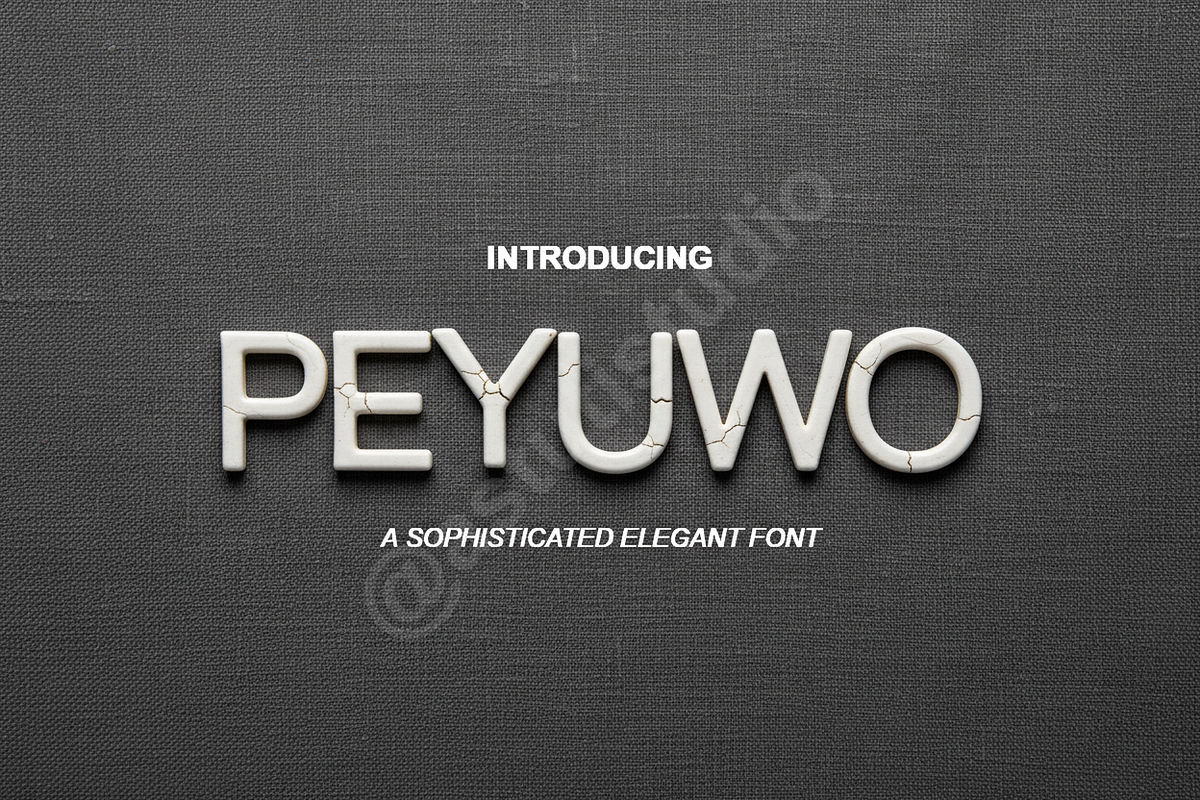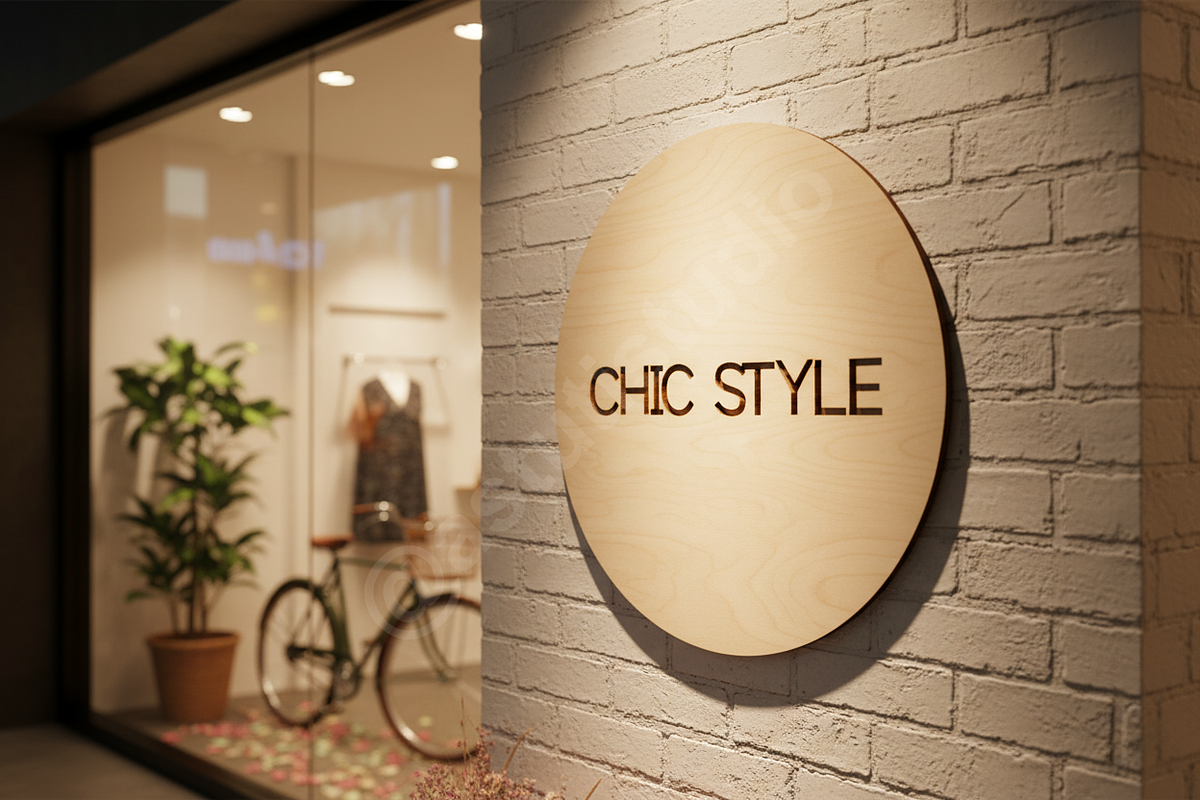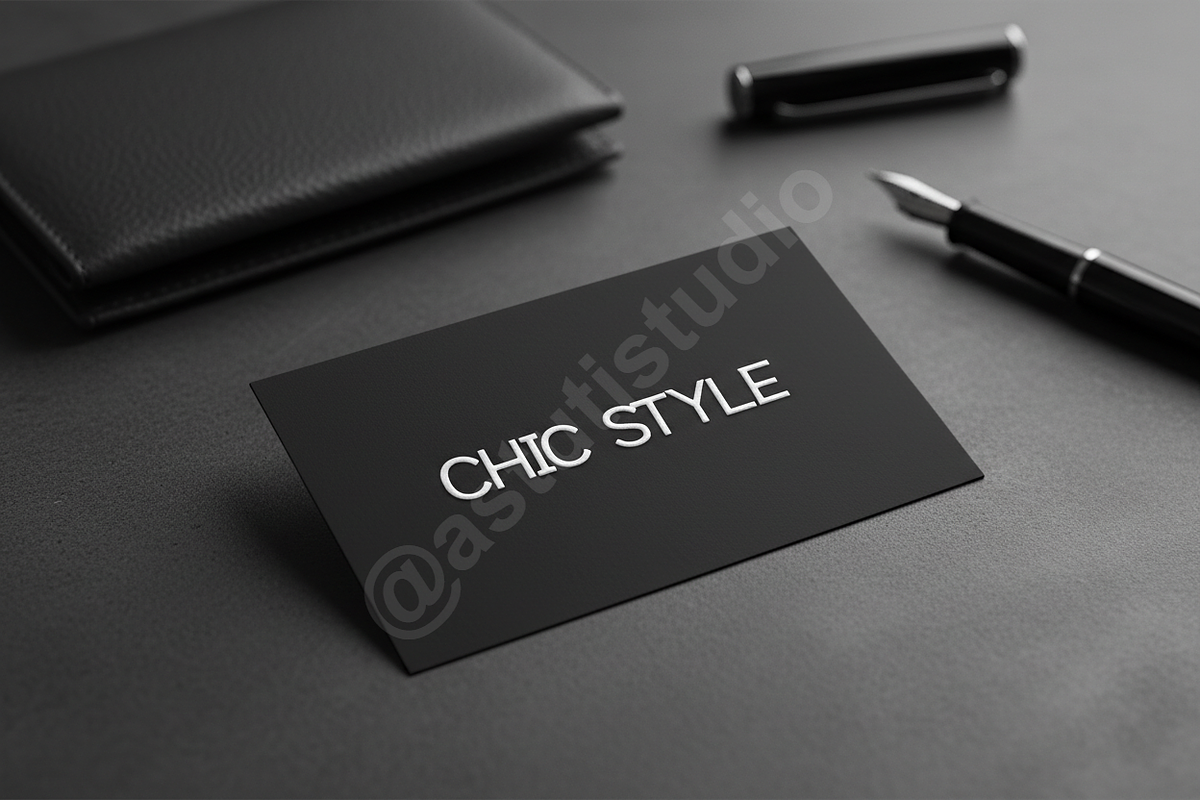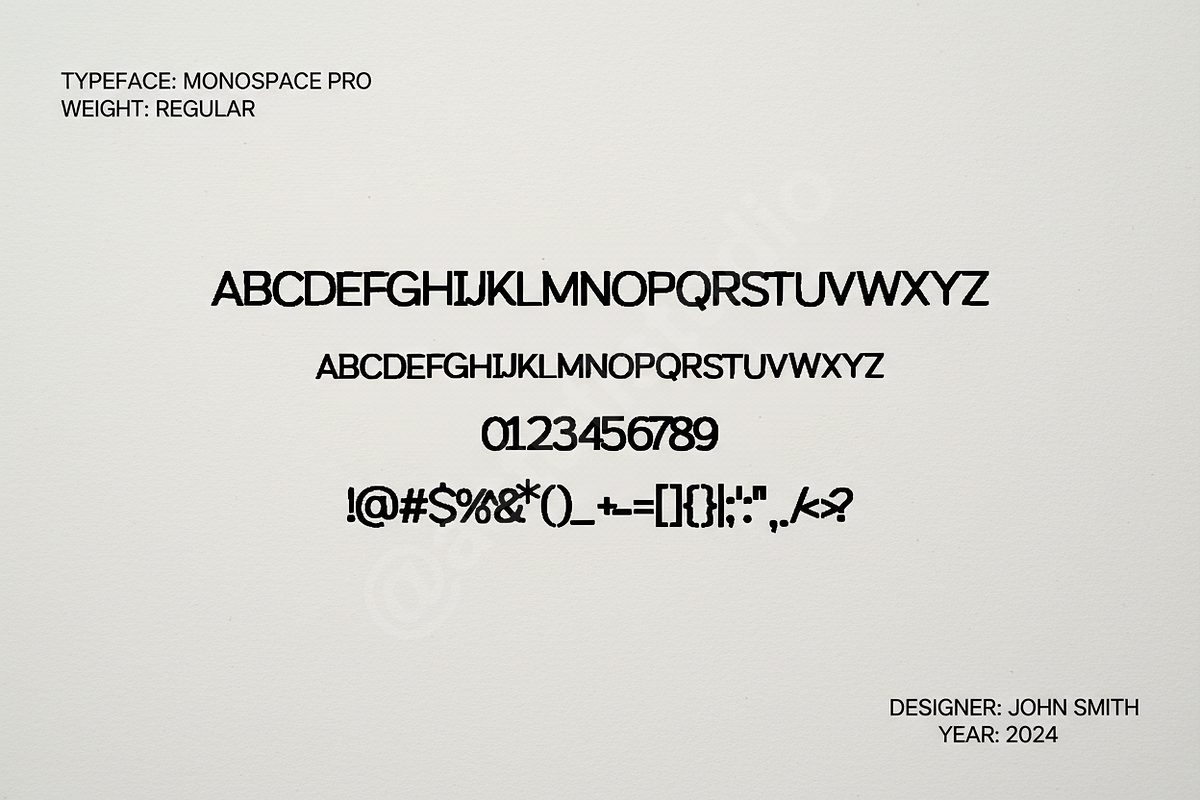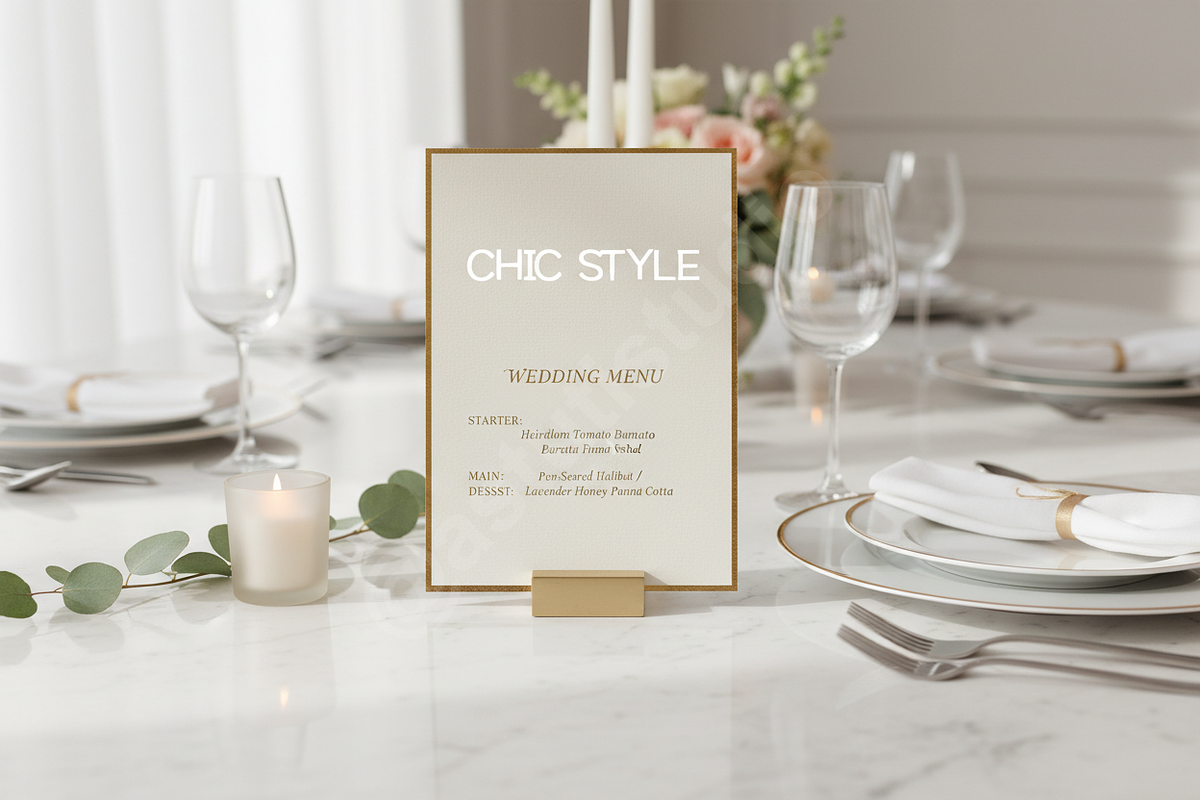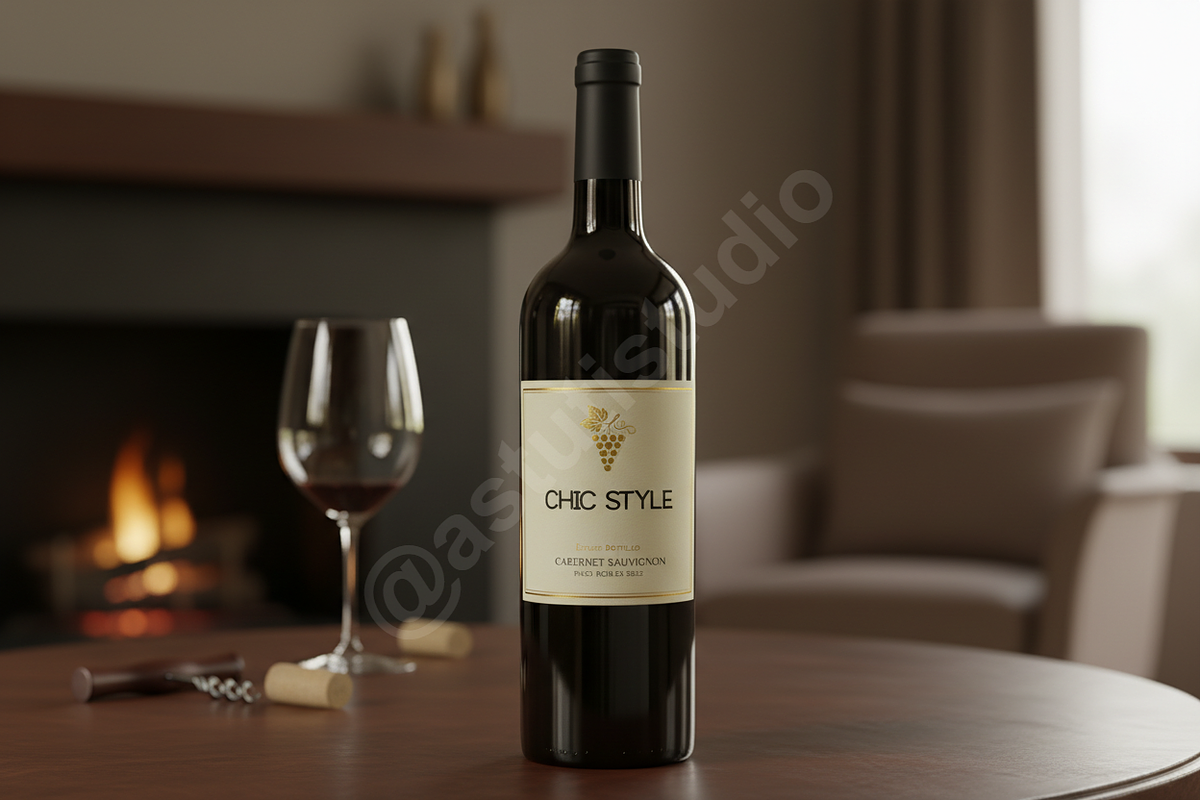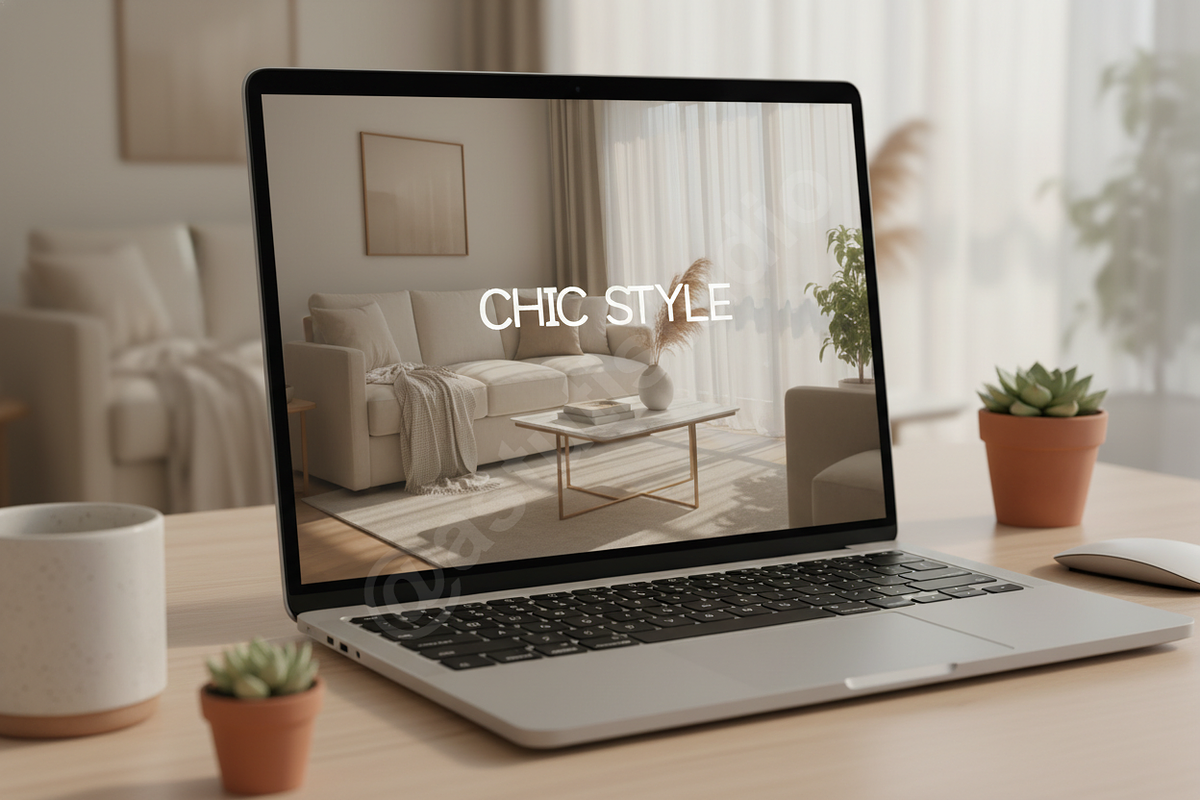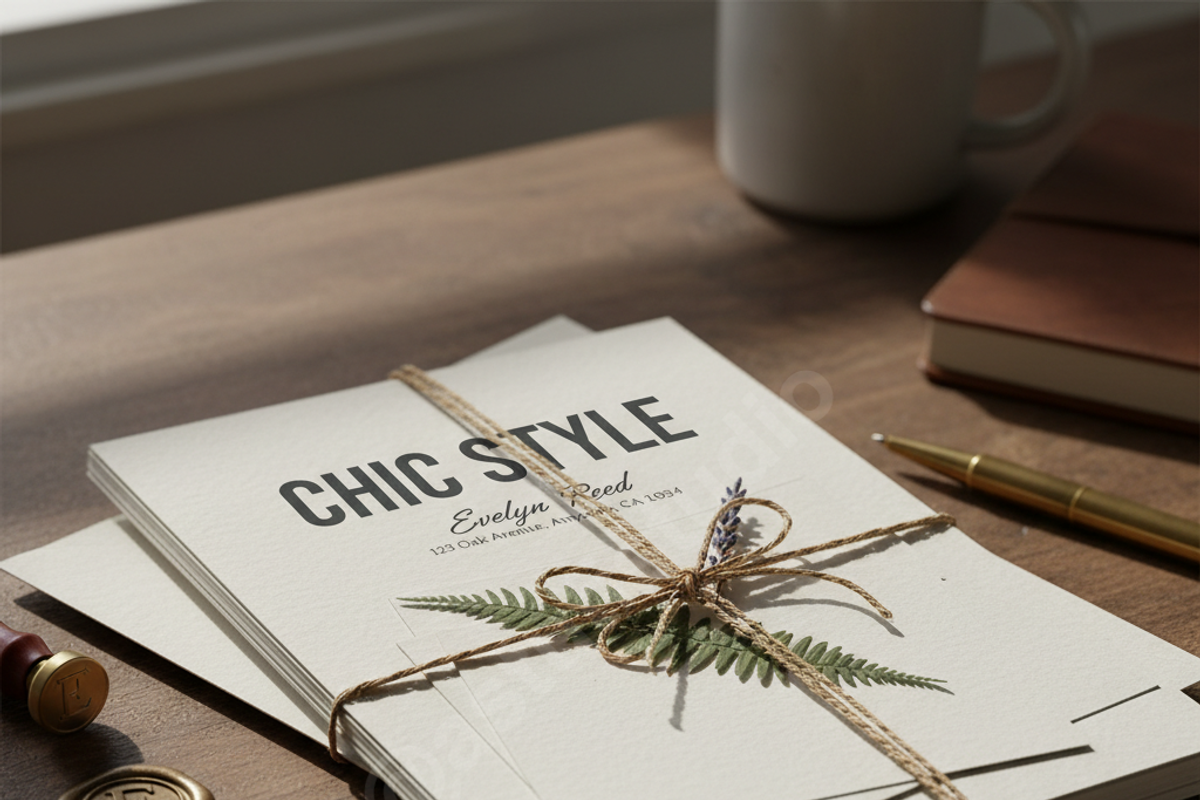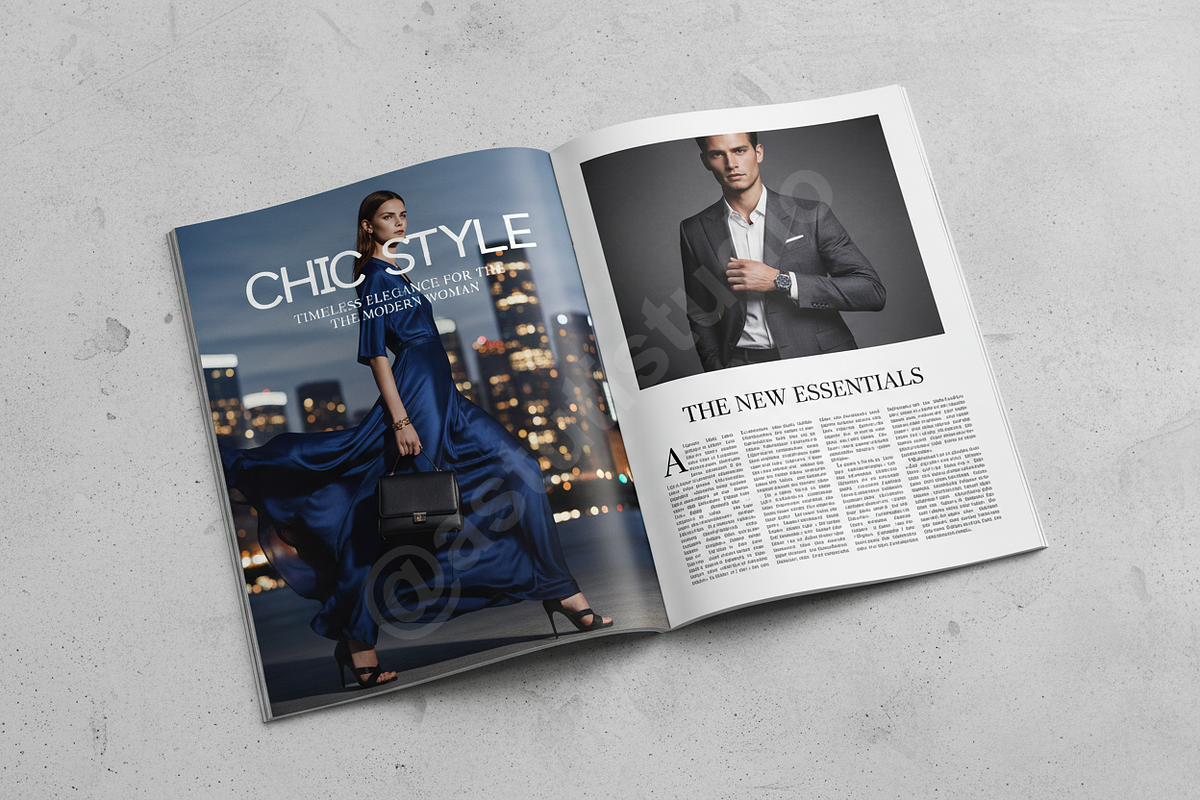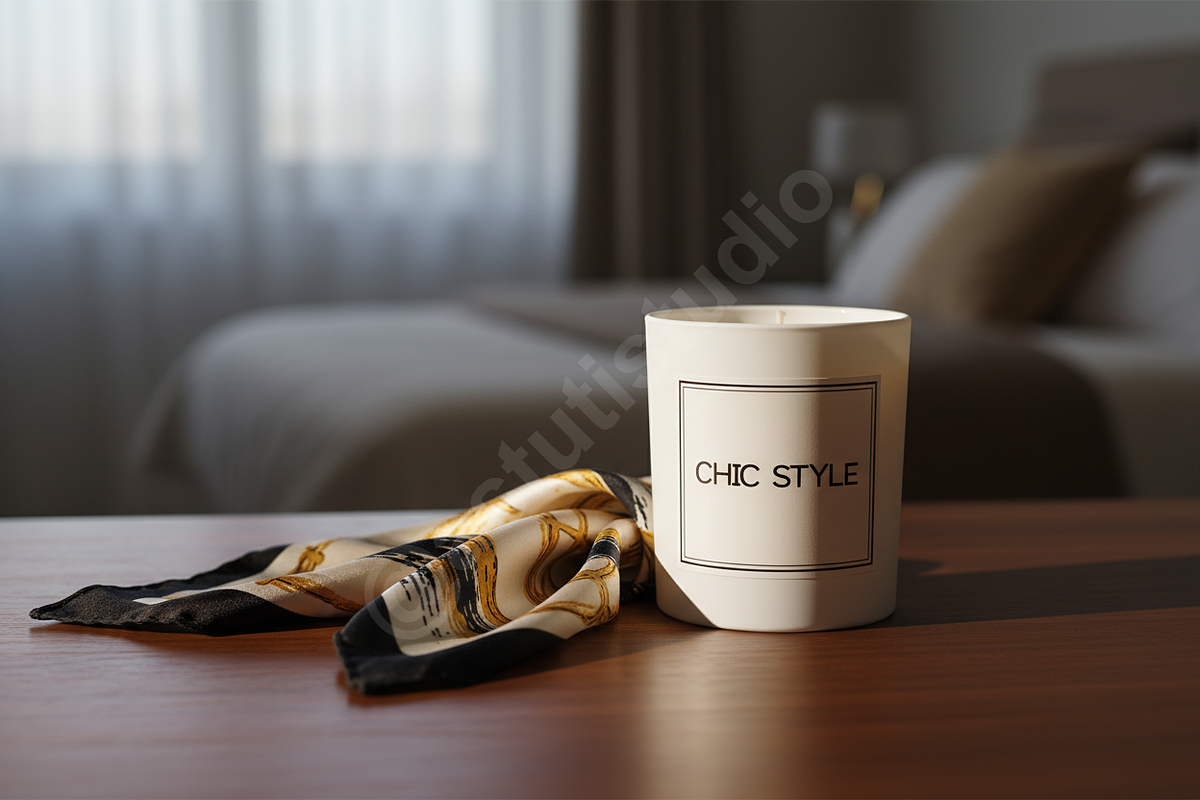
Peyuwo - Elegant & Sophisticated Ser
Peyuwo is a premium serif typeface meticulously crafted for high-end aesthetics. Balancing classic sophistication with modern proportions, this font is designed to elevate luxury branding, editorial layouts, and high-impact social media content. Its refined curves and intentional spacing make it a versatile choice for designers seeking a polished, professional look.
- Refined high-contrast letterforms
- Precise kerning and spacing
- Clean and legible at various sizes
- Elegant ligatures and alternates for unique character